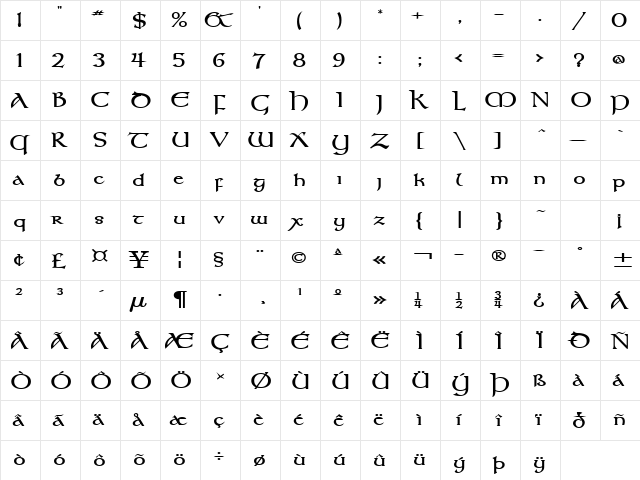
Kelt Wide Bold
Design Context for Kelt Wide Typeface
Kelt Wide takes a measured approach to typography — its balanced proportions and neutral character make it a reliable workhorse for both digital and print work. The heavy weight commands attention and anchors typographic hierarchies.